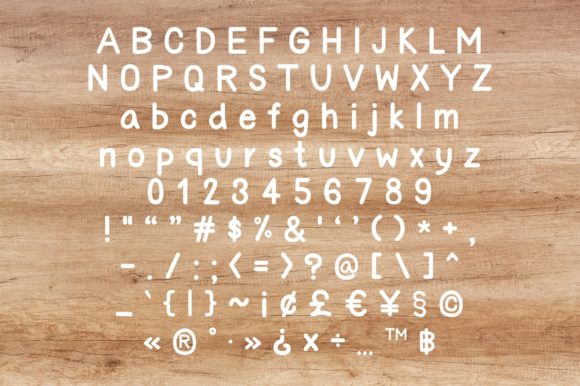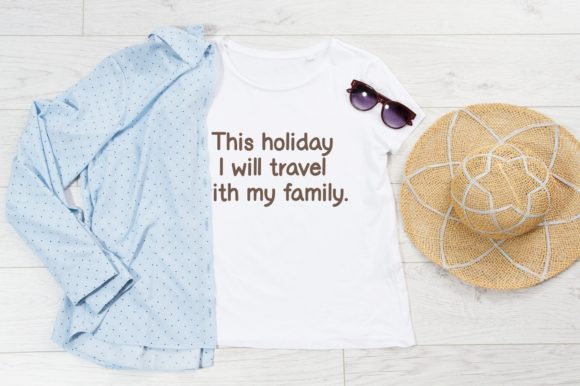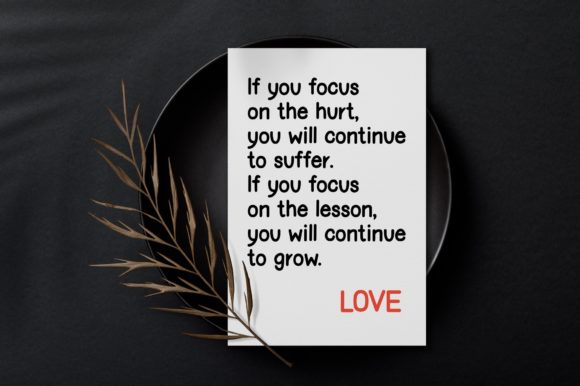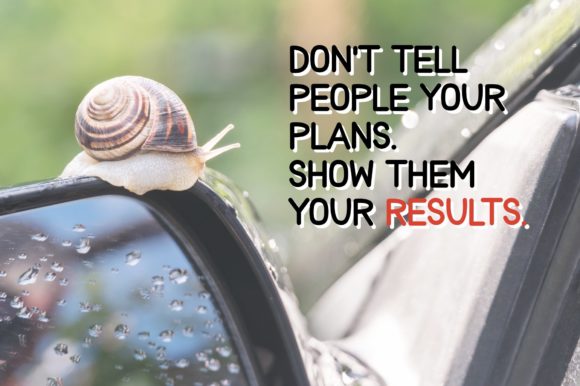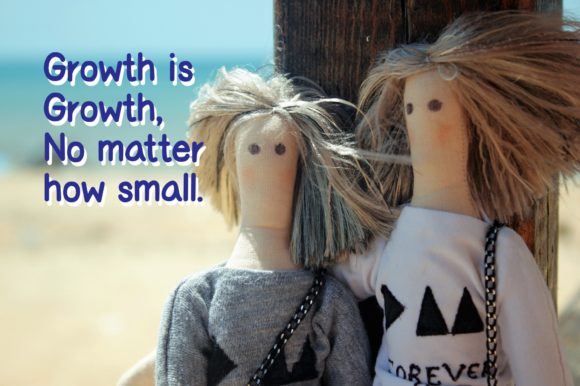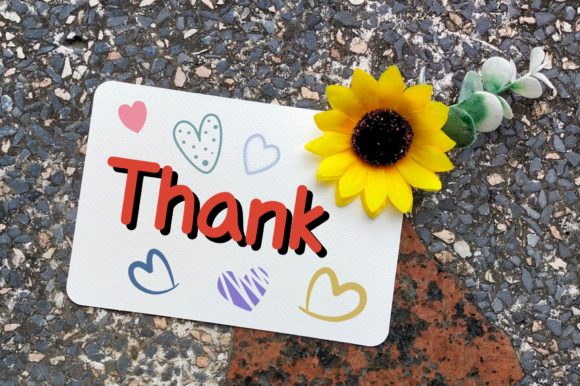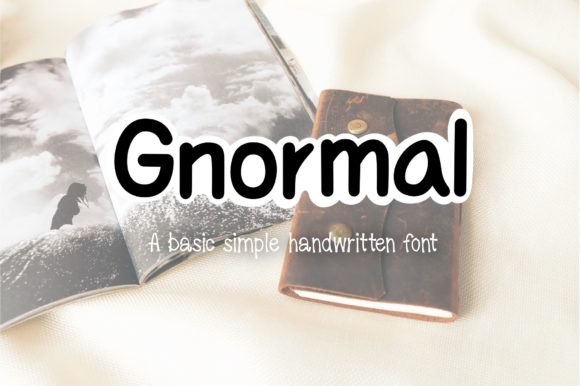
Gnormal Font: The Ultimate Choice for Designers and Crafters
In the world of typography, fonts play a crucial role in conveying the tone and personality of a brand or project. With countless options available, finding the perfect font can be overwhelming. However, if you’re looking for a basic, simple, and lettered display font that’s both clean and cute, look no further than Gnormal Font. In this article, we’ll explore the features and benefits of Gnormal Font, and why it’s the perfect fit for your logos, branding, social media, and crafty DIY projects.
What is Gnormal Font?
Gnormal Font is a sans-serif font that’s designed to be highly legible and versatile. Its simple and clean design makes it an excellent choice for a wide range of applications, from digital media to print materials. The font’s basic and lettered display style gives it a unique charm that’s both modern and timeless.
Key Features of Gnormal Font
• Clean and Simple Design: Gnormal Font boasts a clean and simple design that’s free from unnecessary embellishments. This makes it easy to read and understand, even at small font sizes.
• Cute and Friendly: Despite its simplicity, Gnormal Font has a cute and friendly vibe that’s perfect for brands and projects that want to appear approachable and relatable.
• Highly Legible: The font’s clear and concise design ensures that it’s highly legible, even in digital formats.
• Versatile: Gnormal Font is suitable for a wide range of applications, including logos, branding, social media, and crafty DIY projects.
Why Choose Gnormal Font?
So, why should you choose Gnormal Font for your next project? Here are just a few compelling reasons:
• Easy to Read: Gnormal Font is designed to be easy to read, even at small font sizes. This makes it perfect for digital media, where legibility is crucial.
• Unique and Memorable: Despite its simplicity, Gnormal Font has a unique charm that’s hard to forget. This makes it an excellent choice for logos and branding.
• Customizable: Gnormal Font is highly customizable, allowing you to adjust the font size, color, and style to suit your project’s needs.
How to Use Gnormal Font in Your Projects
Using Gnormal Font in your projects is easy. Here are a few tips to get you started:
• Logos and Branding: Use Gnormal Font to create a unique and memorable logo that’s both clean and simple.
• Social Media: Use Gnormal Font to create engaging social media graphics that are easy to read and understand.
• Crafty DIY Projects: Use Gnormal Font to add a personal touch to your crafty DIY projects, such as handmade cards, gift tags, and more.
In conclusion, Gnormal Font is an excellent choice for designers and crafters looking for a basic, simple, and lettered display font. Its clean and cute design makes it perfect for a wide range of applications, from logos and branding to social media and crafty DIY projects. With its high legibility, versatility, and customizability, Gnormal Font is sure to become a staple in your font collection.